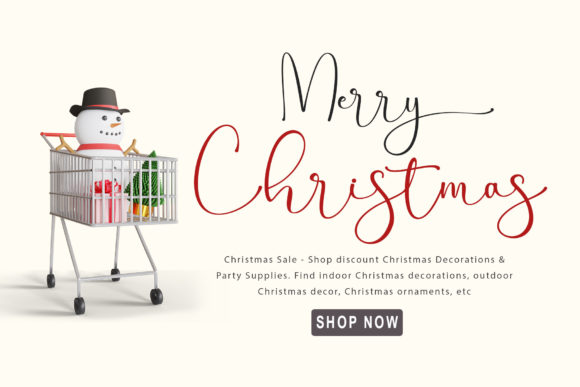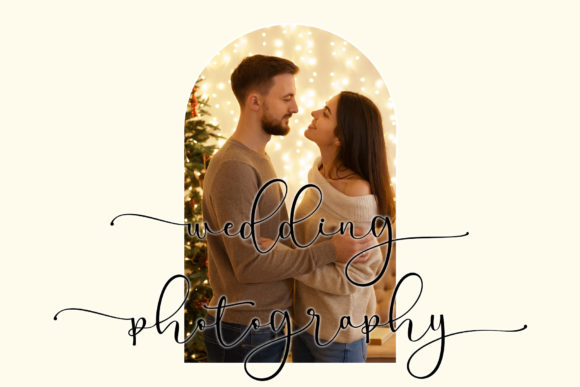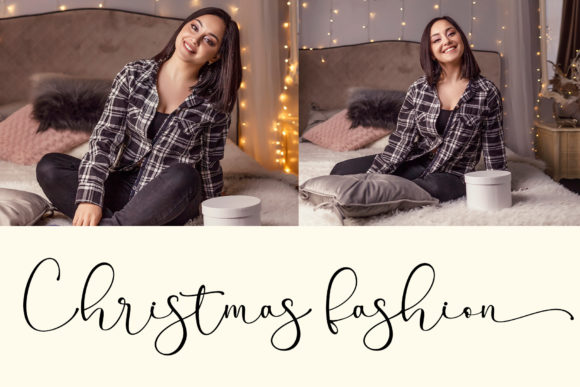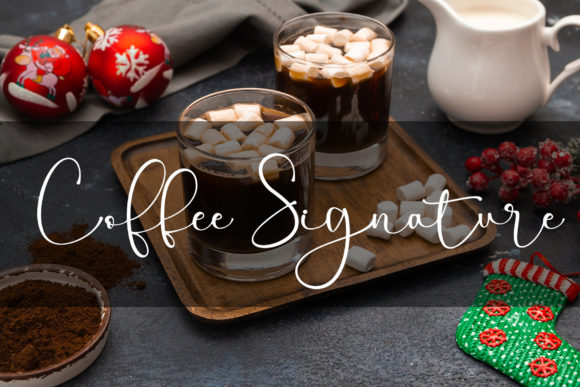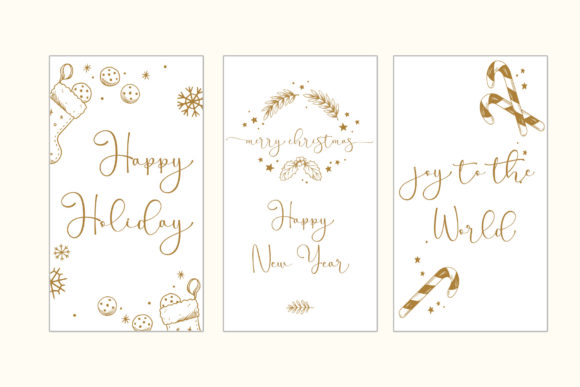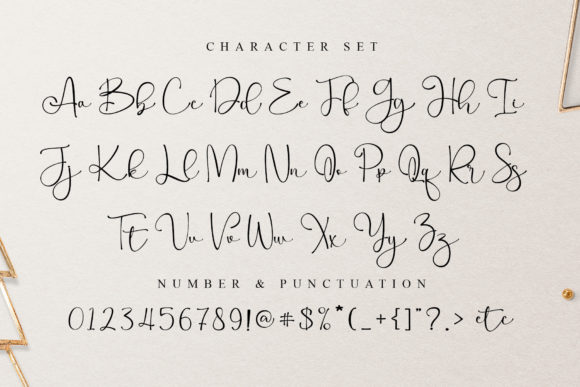
Introduction to Christmas Praise Font
Christmas Praise is a lovely and timeless handwritten font.
It is the best choice for creating eye catching logos, branding and quotes This font is PUA encoded which means you can access all of the glyphs and swashes with ease.